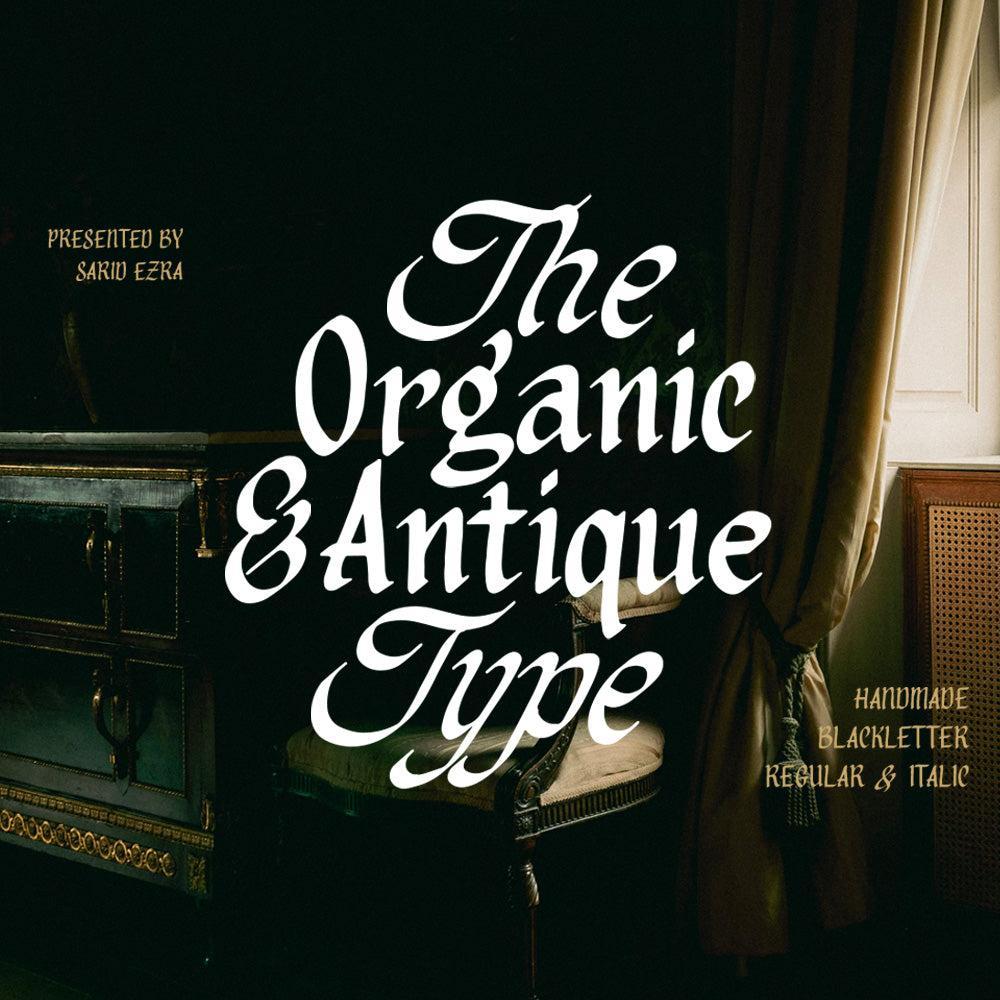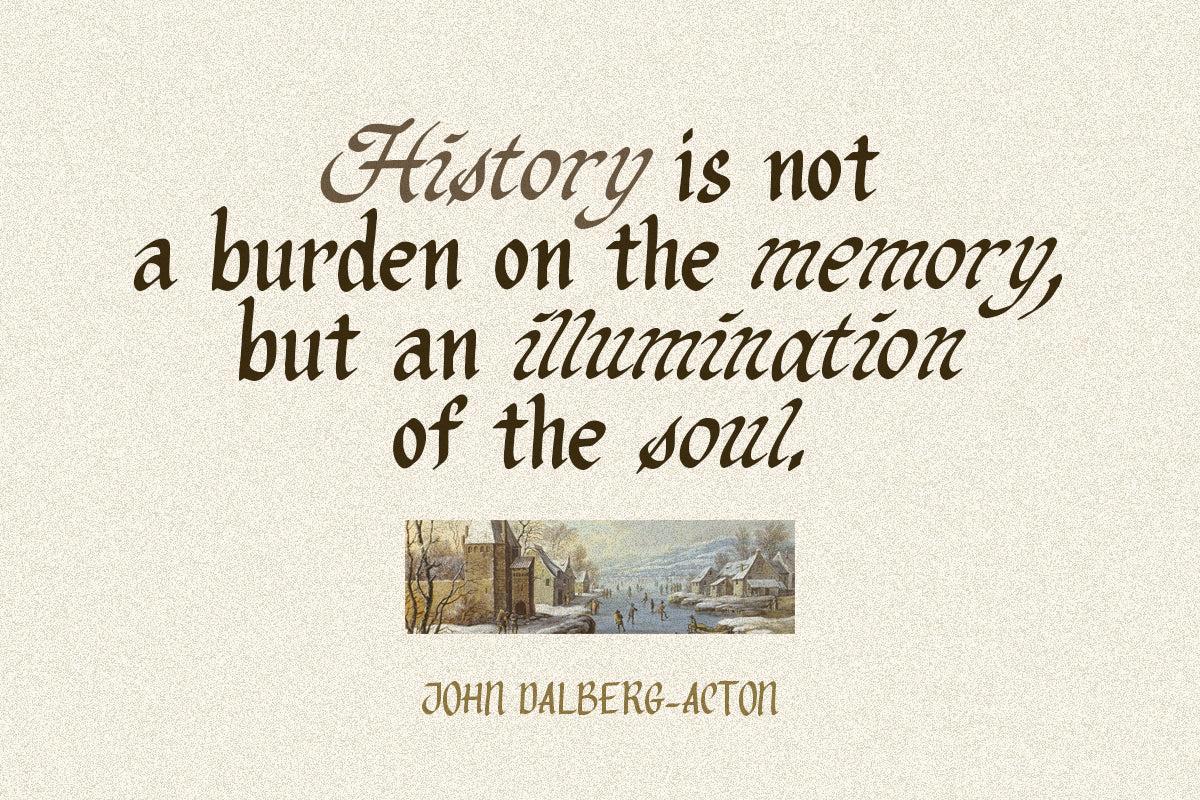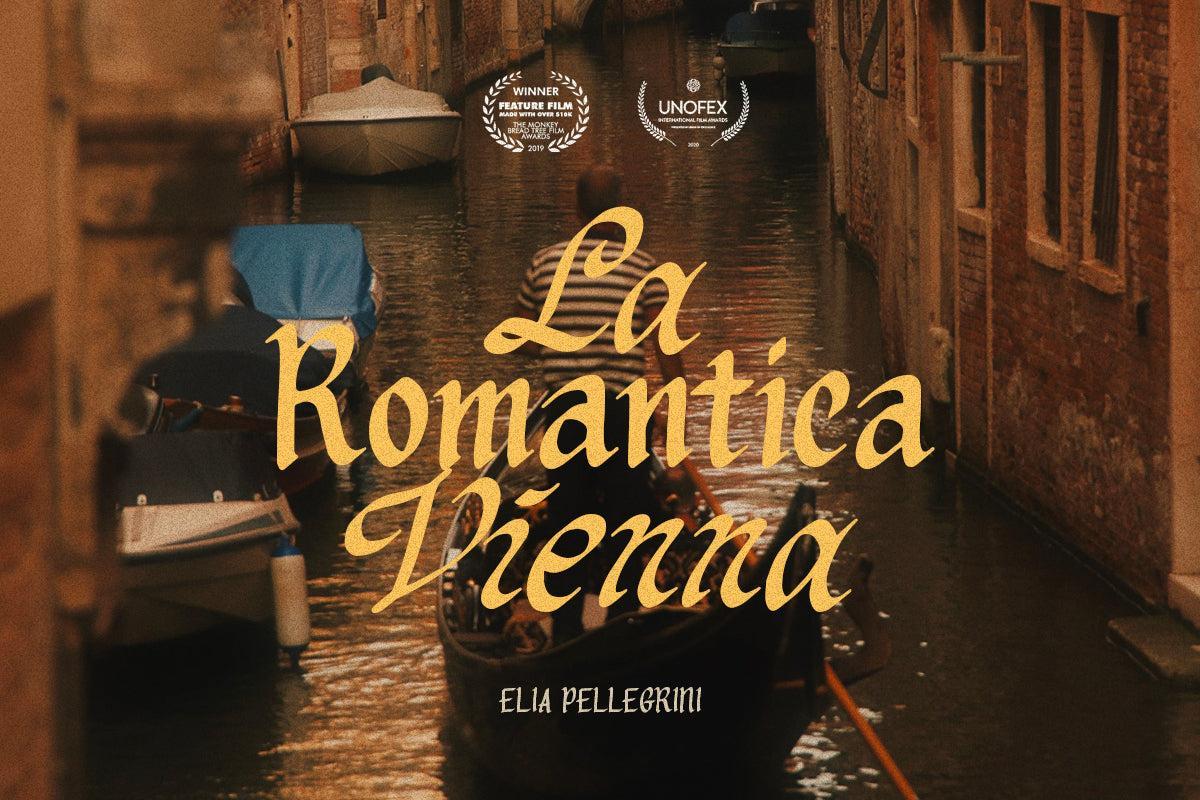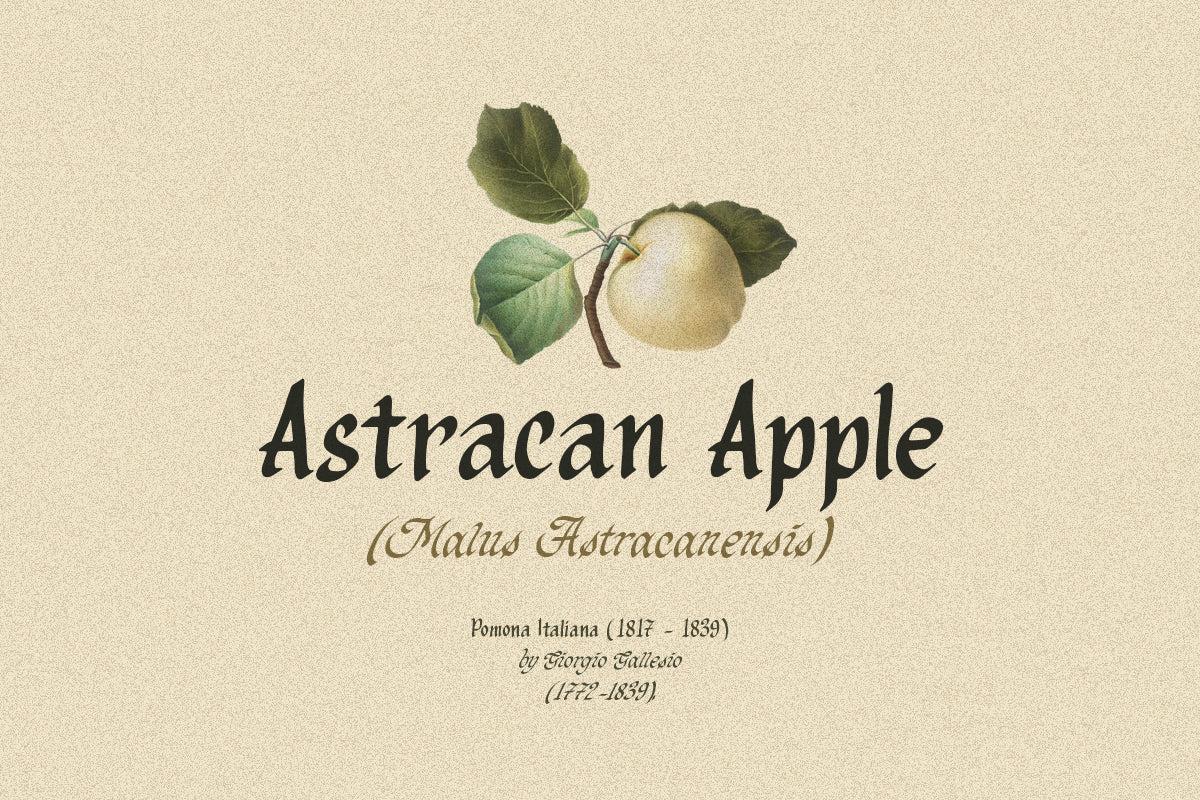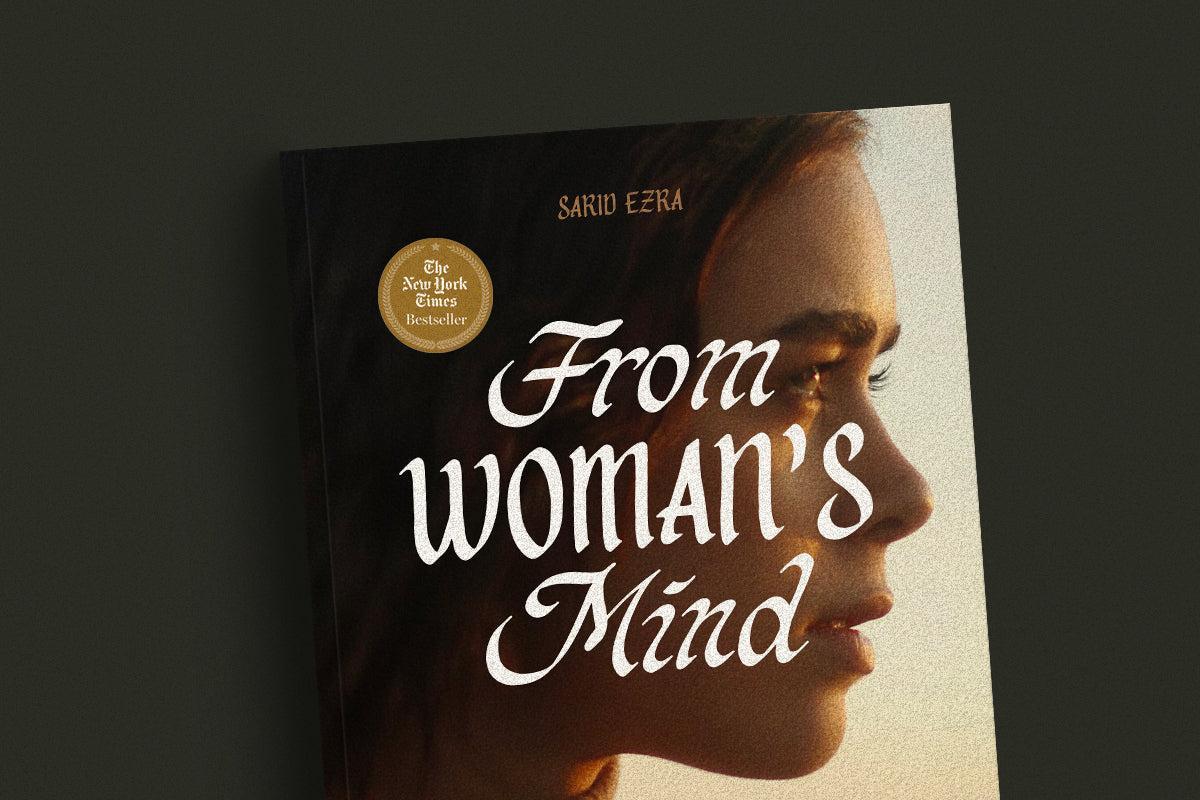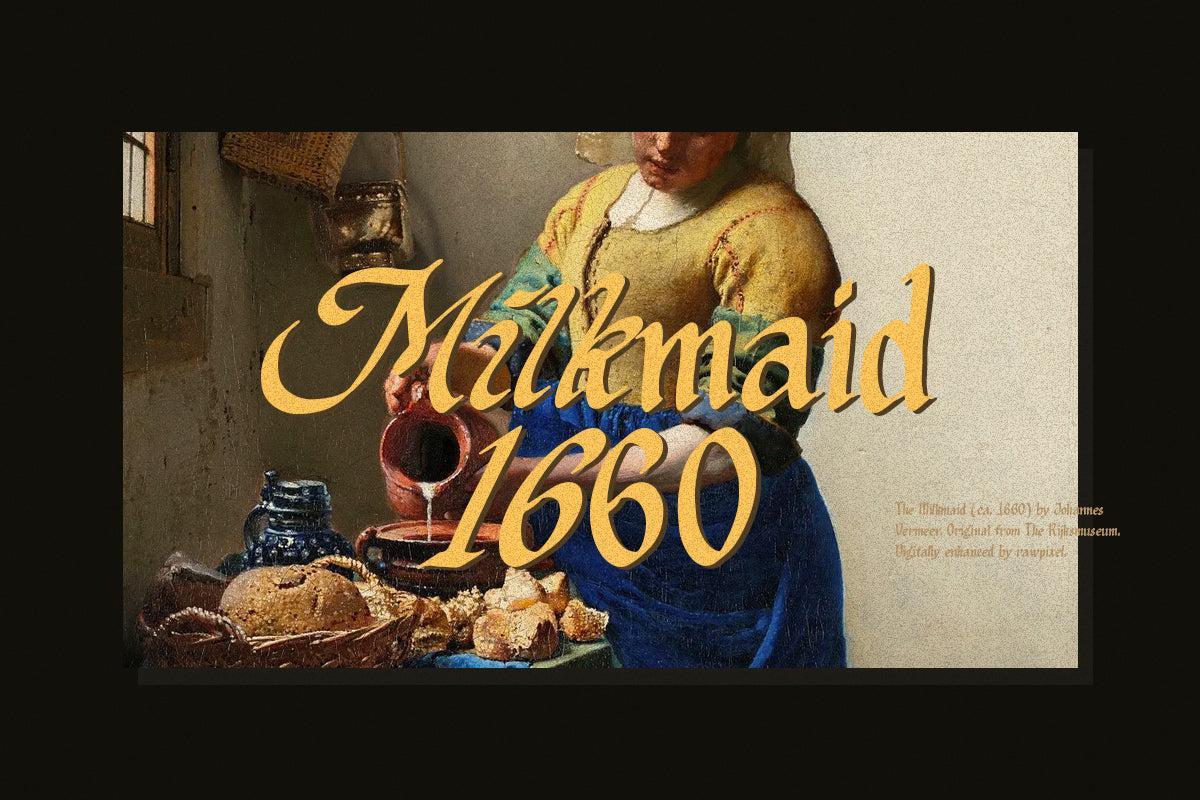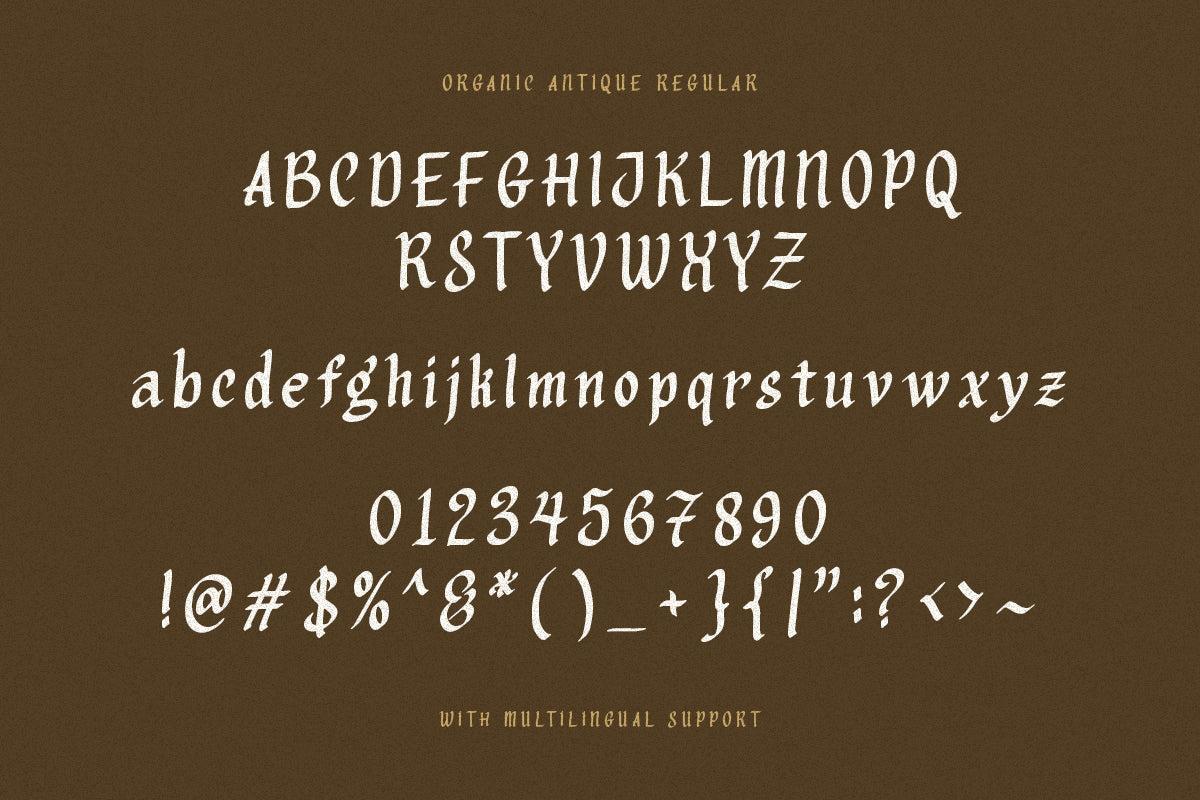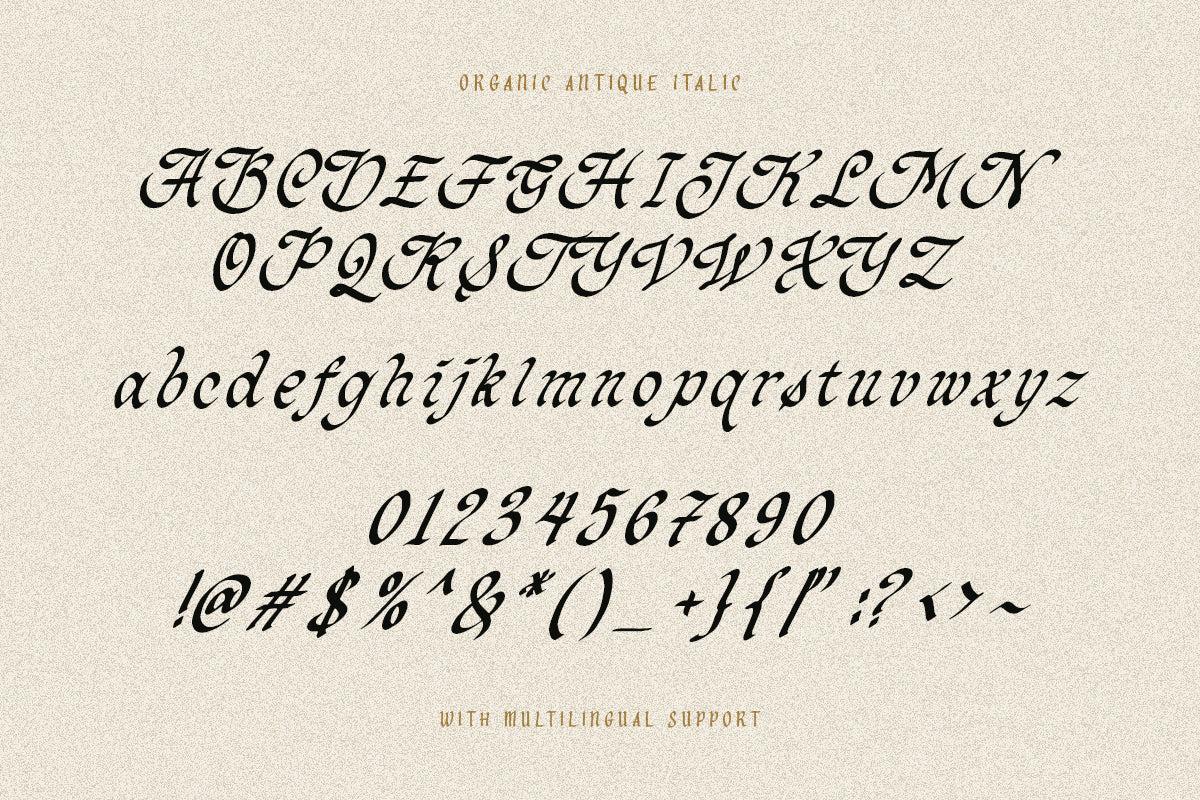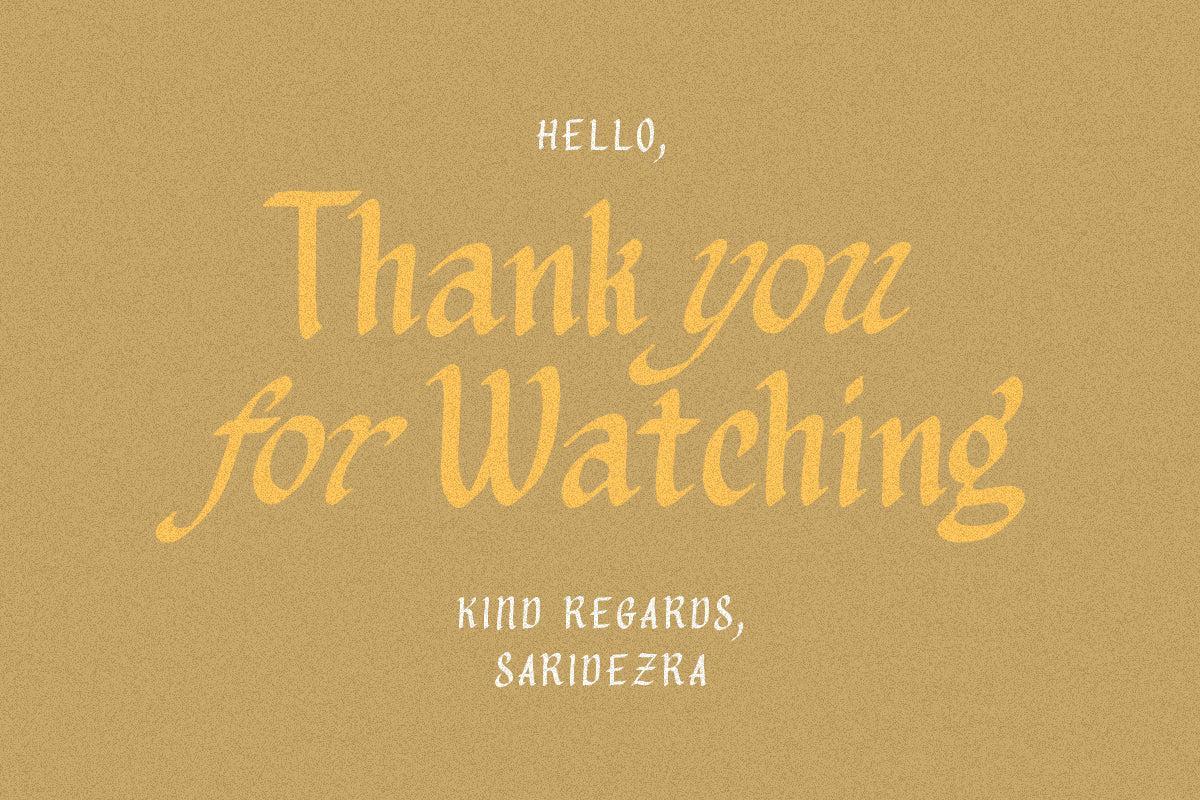
Organic Antique - Blackletter Fonts
Organic Antique - Blackletter Fonts features two styles, regular and true italic, designed with an organic and handmade feel. This font family supports multiple languages and offers a classic, vintage aesthetic suitable for various design applications.